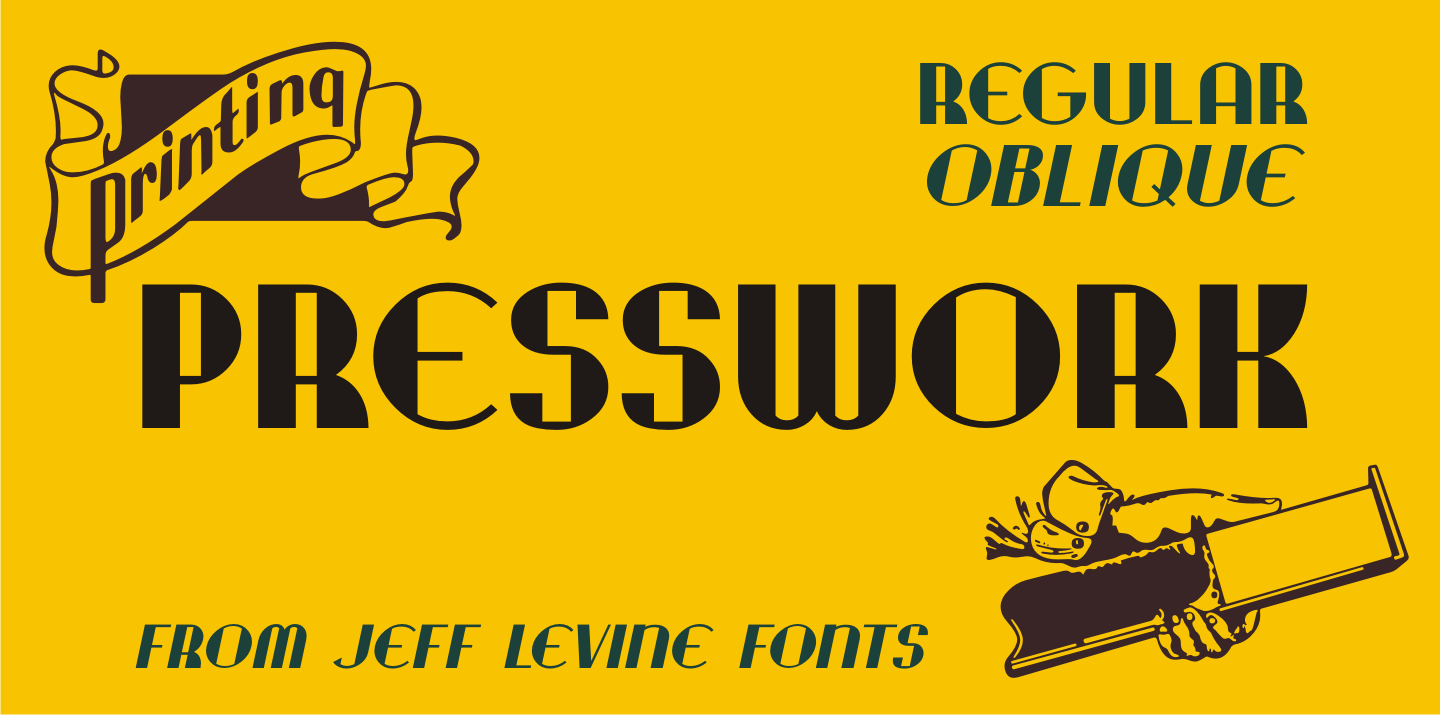
Presswork
Sheet music for the 1939 song 'On the Paraña' featured Art Deco hand lettering in a classic 'thick and thin' style, with many stylized characters.
The publisher of the song was the Theodore Presser Company of Philadelphia, so the name 'Presswork' aptly fit this typographic design.
Presswork JNL is available in both regular and oblique versions.
For trivia buffs, the Paraña is a river in Brazil.